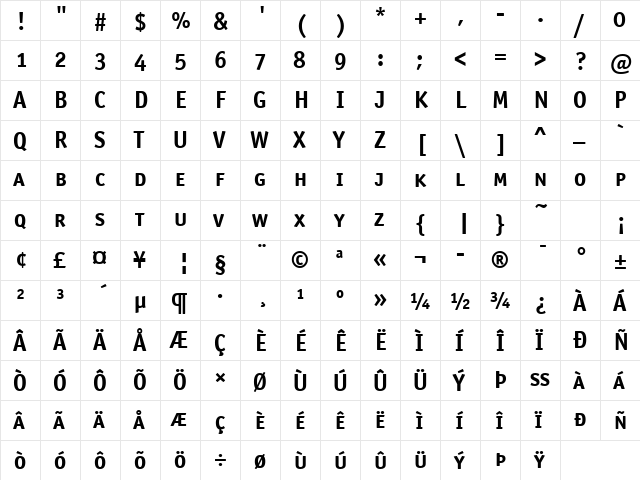
OfficinaSanSCITCTT Bold
| Foundry | International Typeface Corporation |
| Designer | Erik Spiekermann / Ole Schaefer |
Design Context for OfficinaSanSCITCTT Typeface
OfficinaSanSCITCTT takes a measured approach to typography — its balanced proportions and neutral character make it a reliable workhorse for both digital and print work. The heavy weight commands attention and anchors typographic hierarchies.